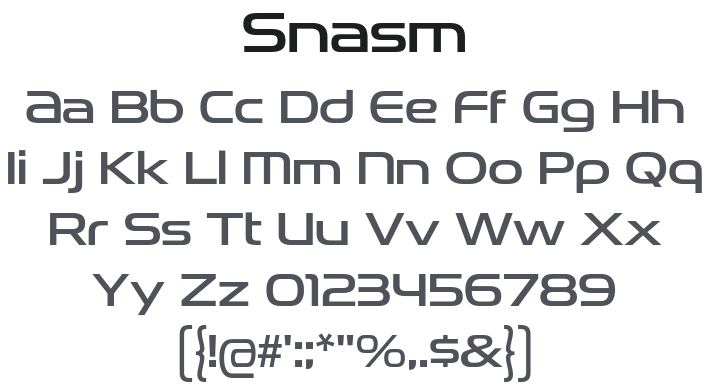
Snasm Font Family
About Snasm
Snasm channels the engineered precision and optimism of late-20th-century tech, translating it into a typeface that feels tactile, like molded lettering on a control panel. Its softened edges and measured curves suggest something manufactured to be touched, not just seen—bringing a sense of physicality to screen and print.